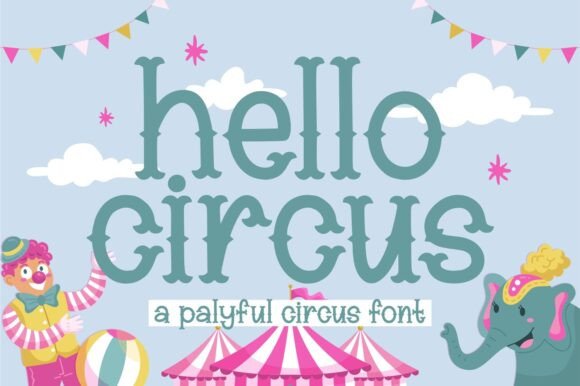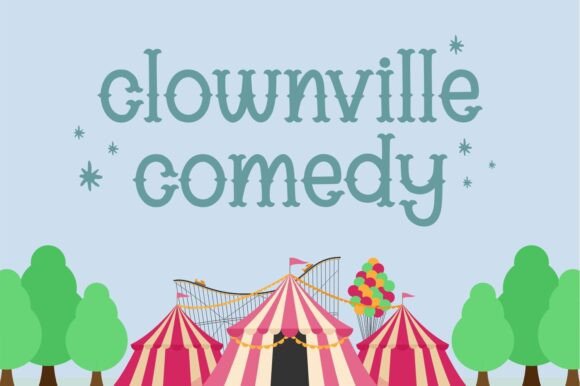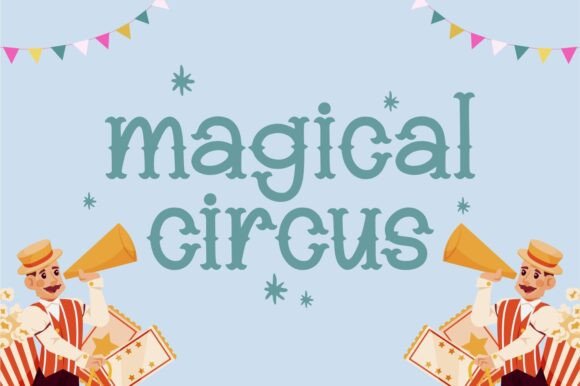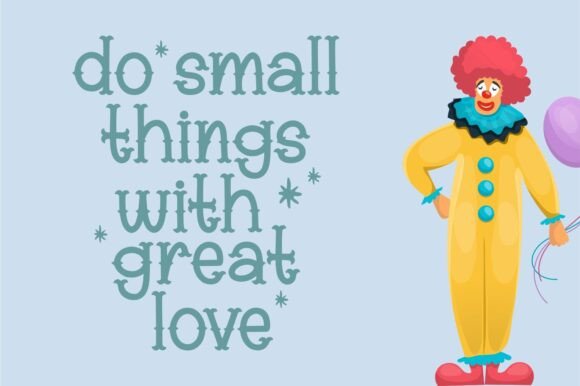
Hello Circus Font
About the Hello Circus Font
Elevate your designs with Hello Circus Font, a font that combines sophistication with readability. Hello Circus is a lively and whimsical font inspired by the excitement of a big top show! Its unique, playful style is perfect for children’s designs, party invitations, carnival themes, and creative branding. With full multilingual support and quirky details, it adds a touch of fun and magic to any project. Step right up and make your designs shine with Hello Circus!
Hello Circus thrives in headlines, short bursts of text on posters and packaging, and playful branding applications where its whimsical nature shines. It’s ideal for projects targeting children or conveying a fun, energetic message. However, its low x-height and decorative elements make it unsuitable for body text or UI elements requiring high readability.
Pairing Hello Circus with a clean sans-serif like Open Sans for body copy provides excellent contrast and readability. For a more sophisticated feel, consider pairing it with a classic serif font such as Garamond. A simple geometric sans-serif could also work well to ground the design.
The font’s core personality is undeniably playful and bold, injecting a sense of fun and childlike wonder into any design. It’s best suited to brands and projects that embrace creativity, imagination, and a touch of the unexpected.
Hello Circus Font Usage Examples
Hello Circus Font Example